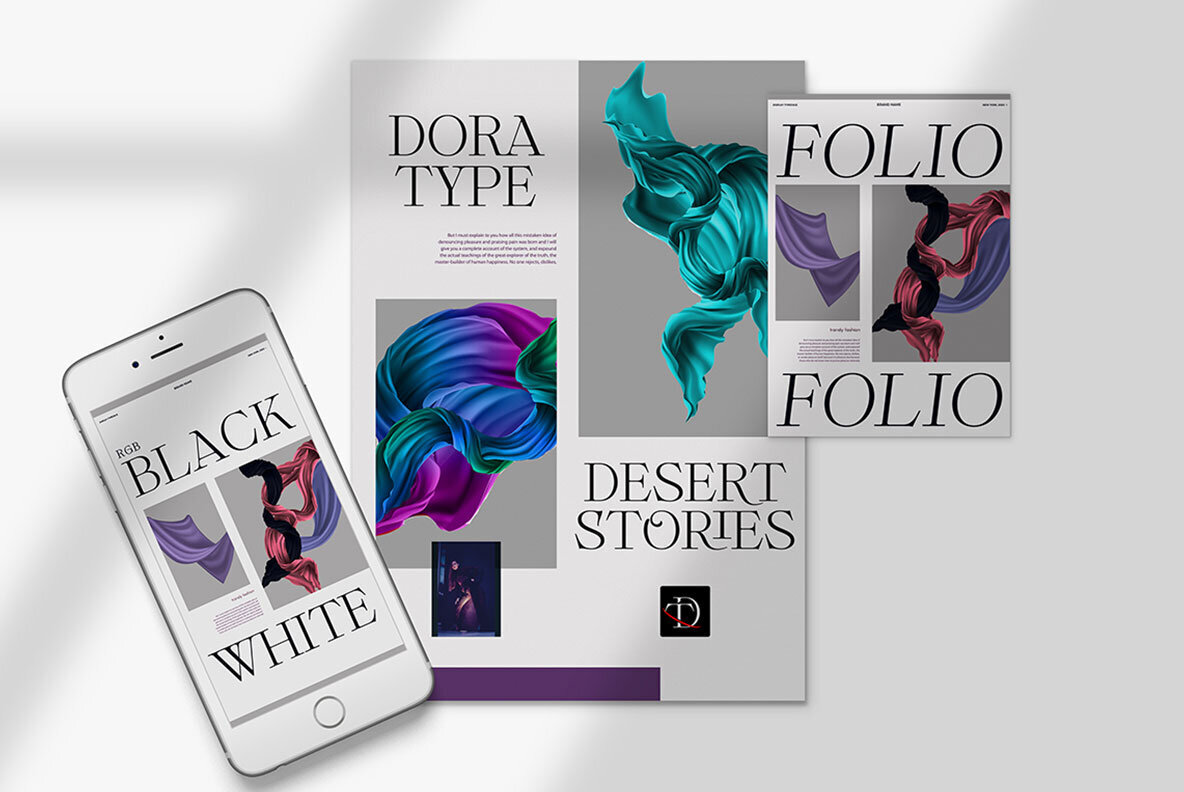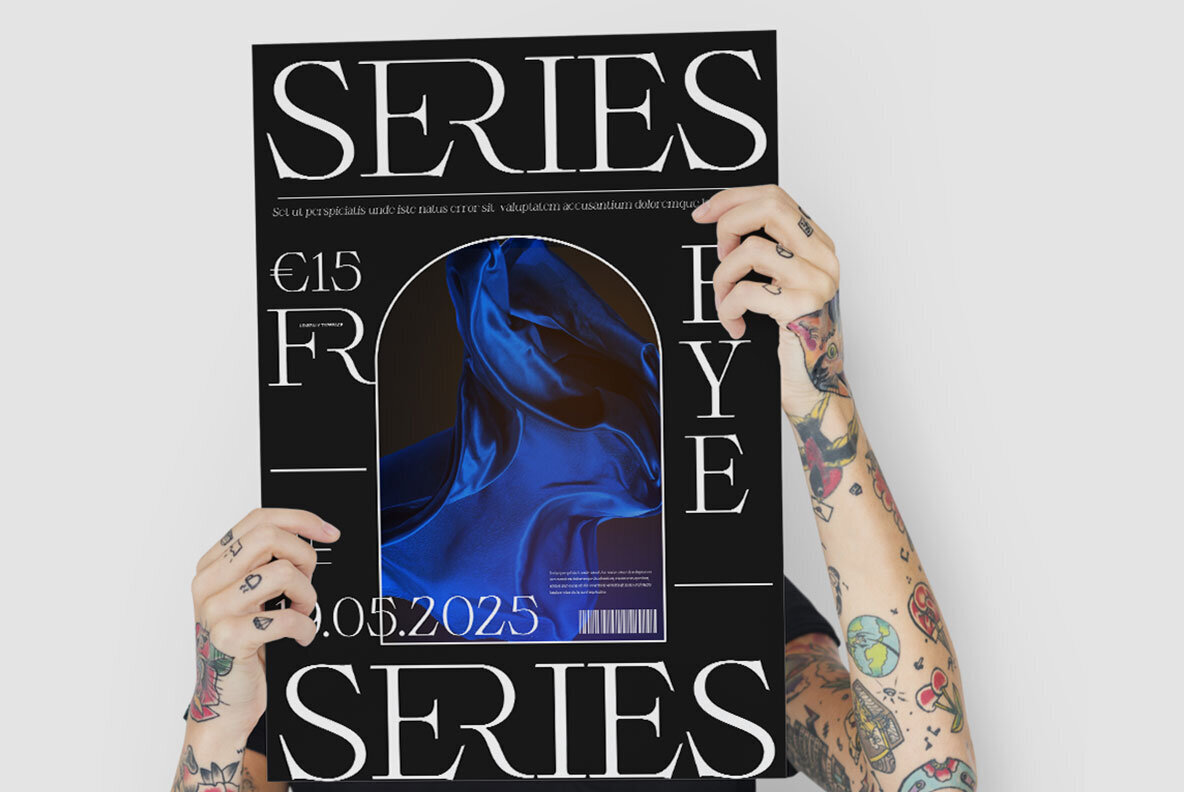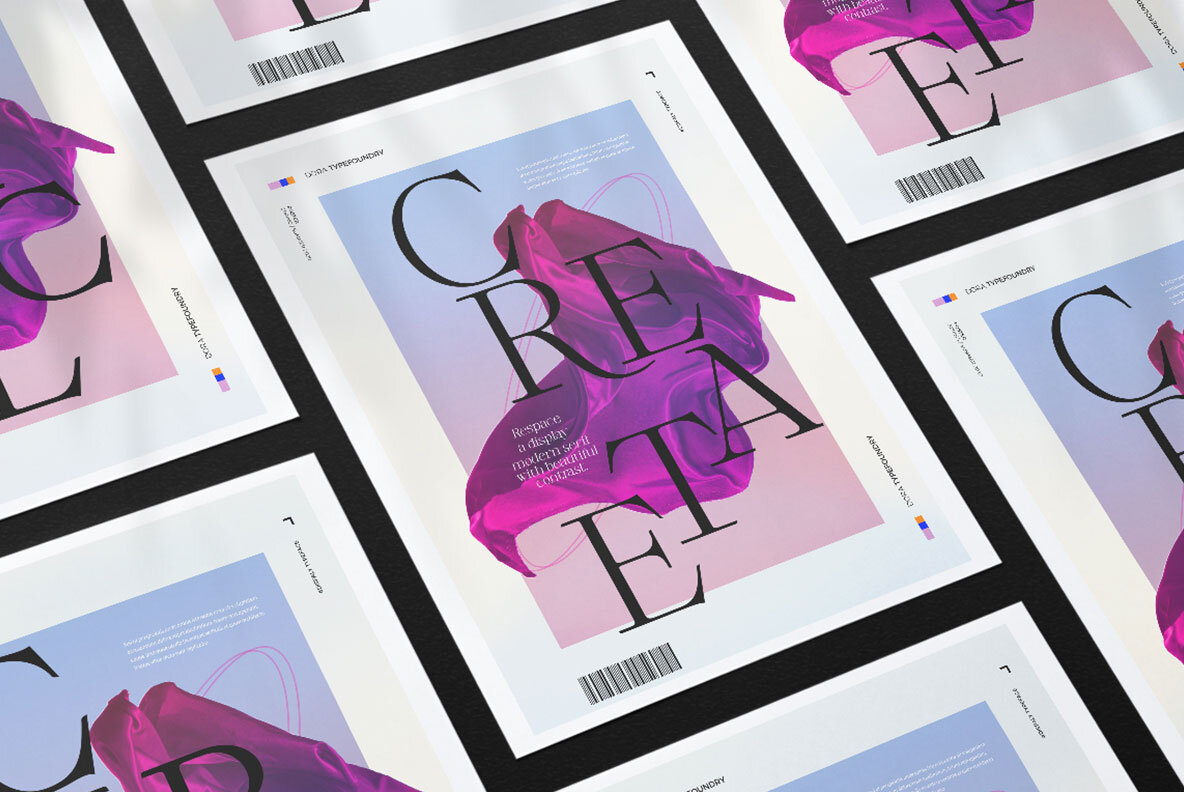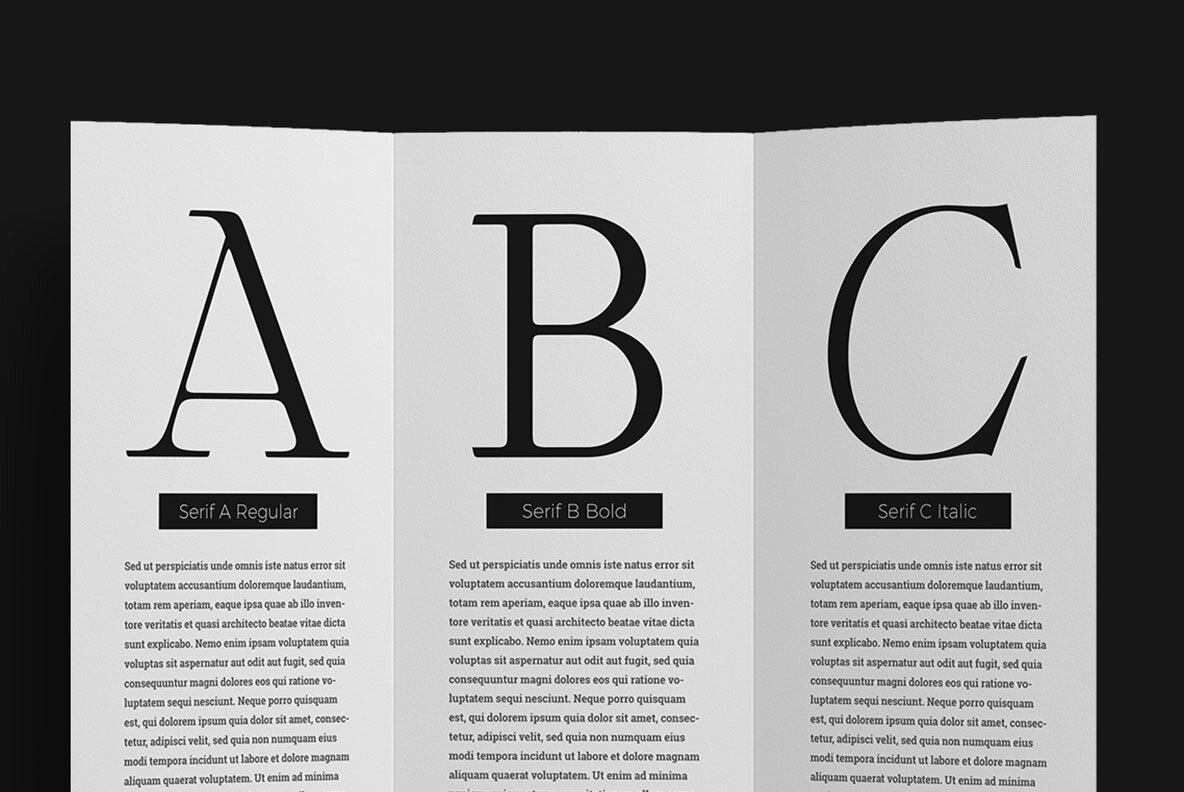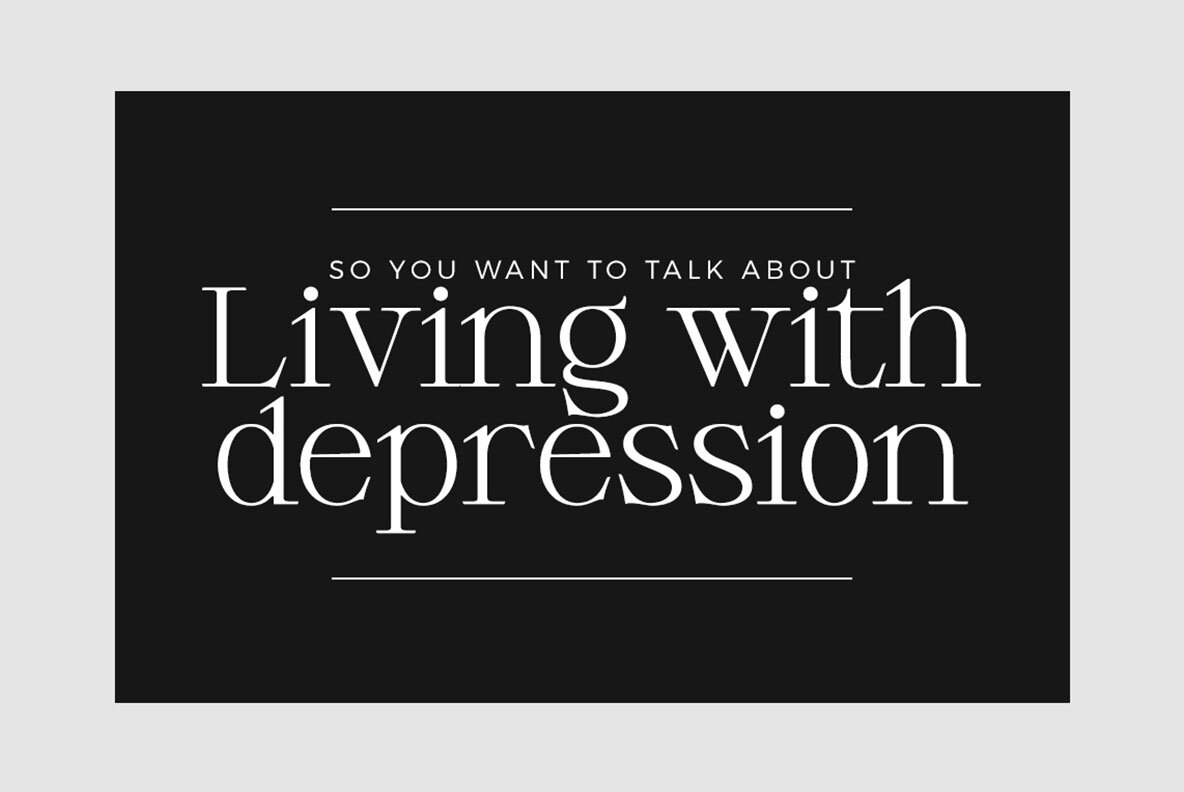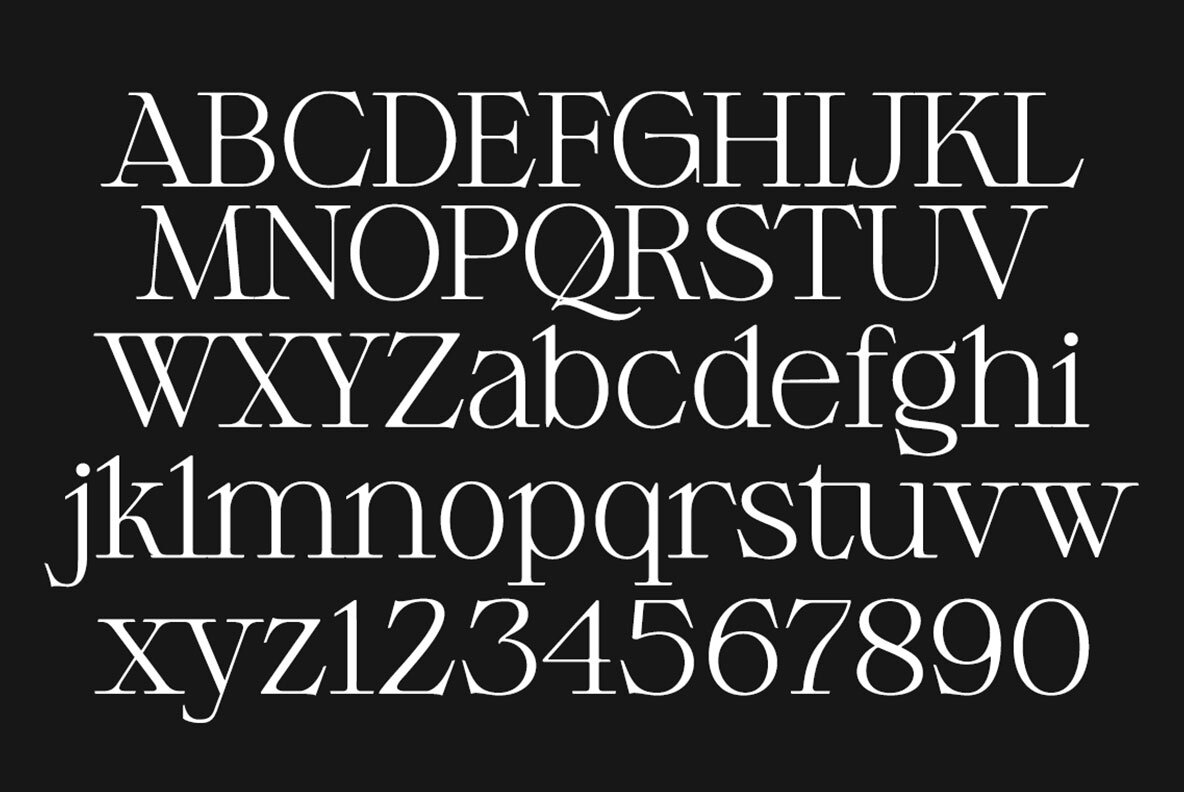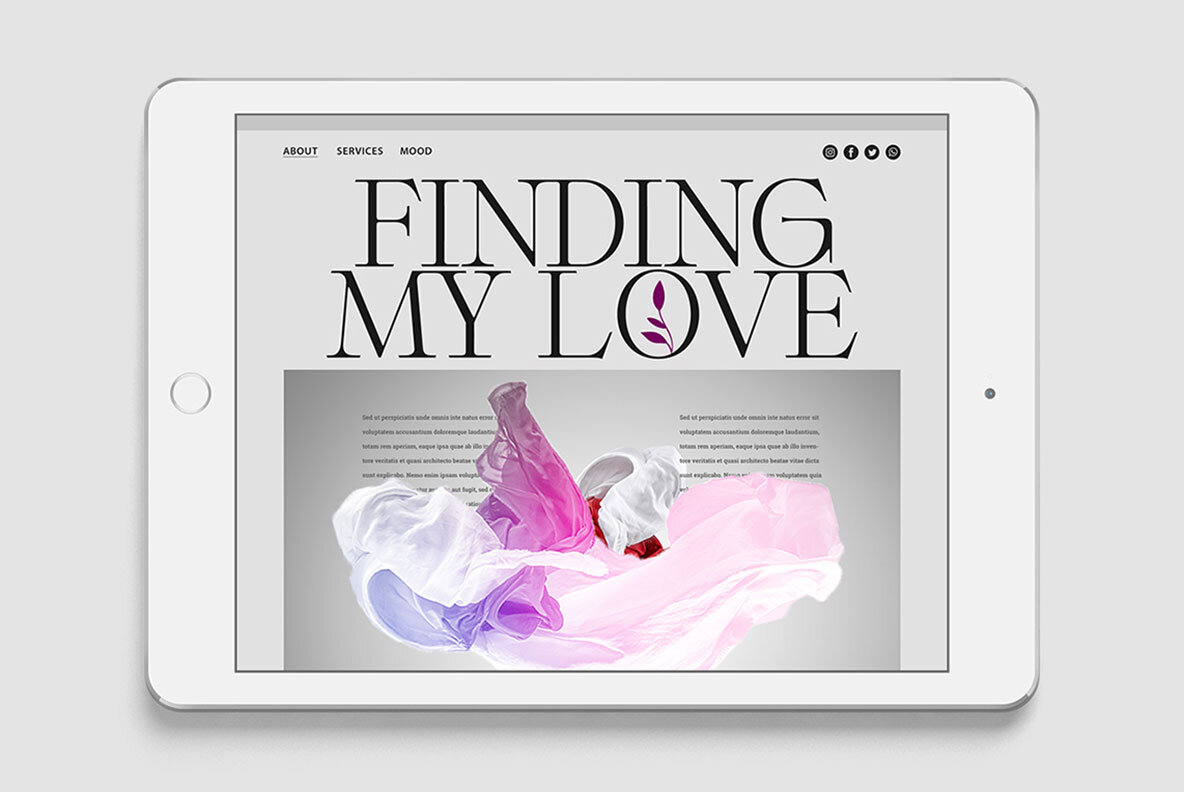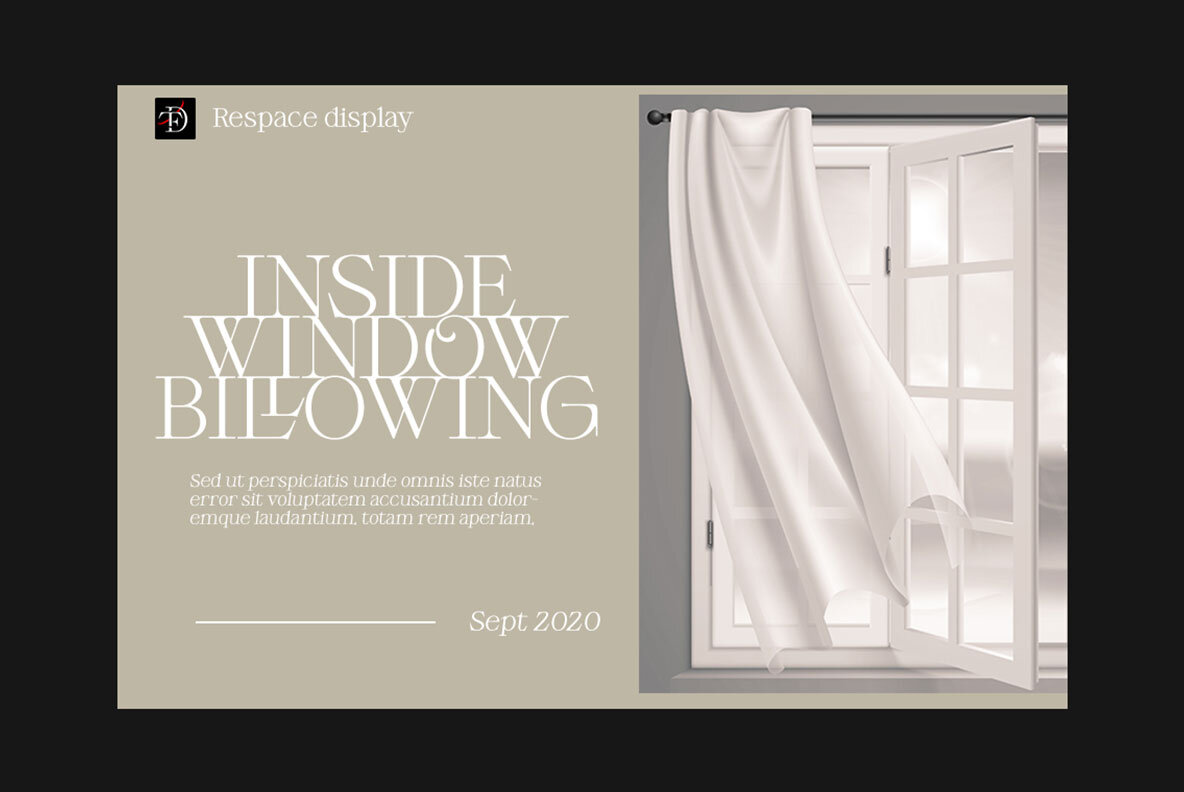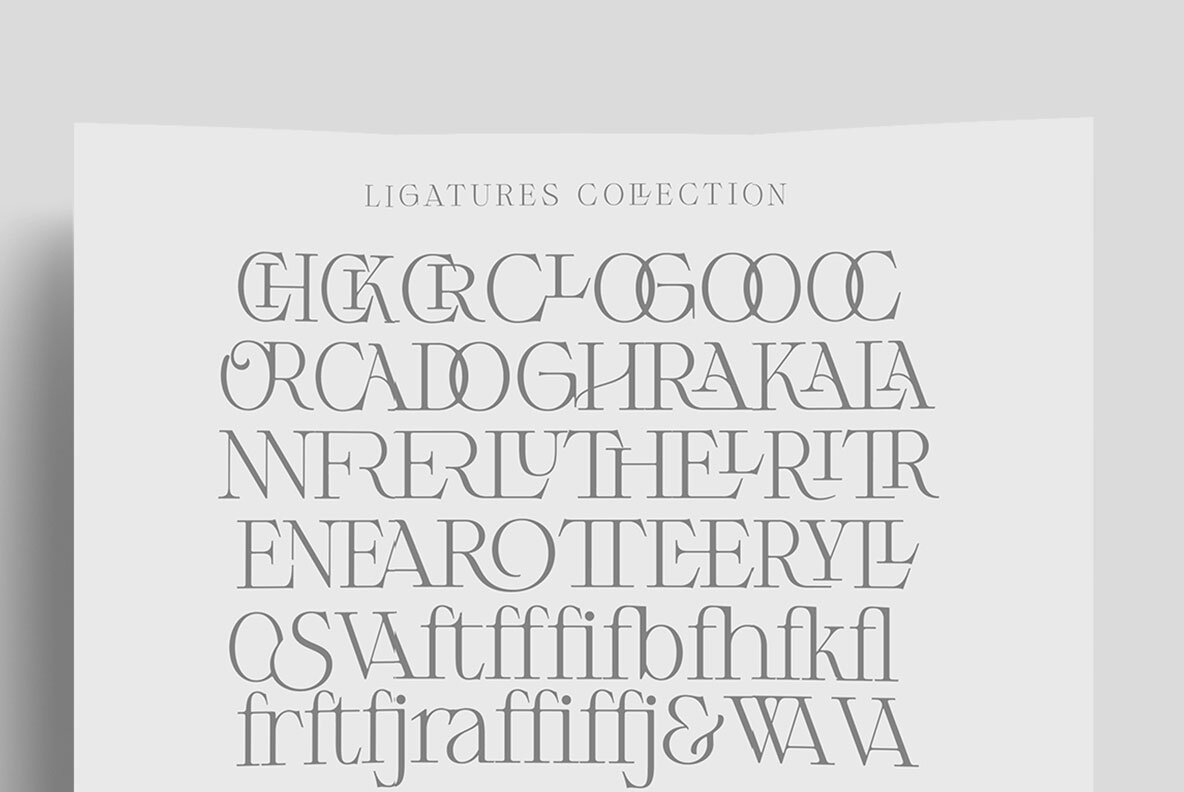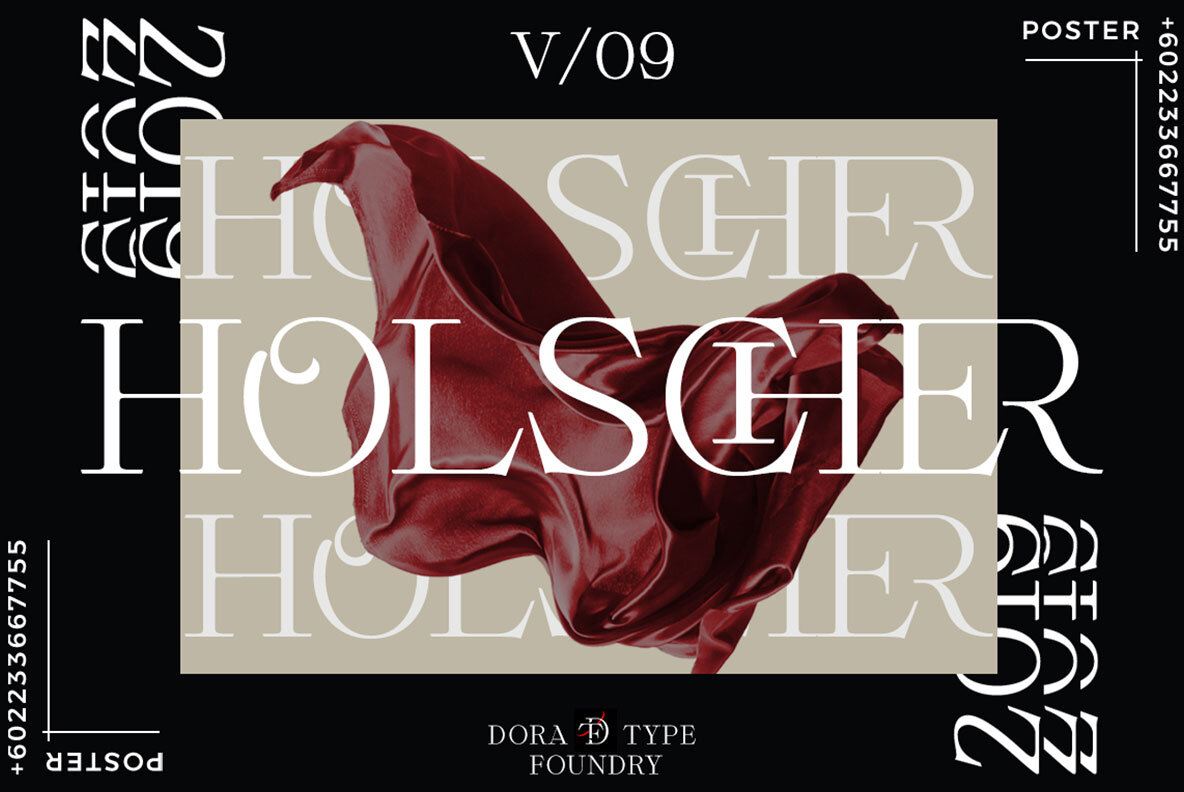
Respace Font
Respace - is a strong neoclassical serif font family with high contrast, cool, unique style and appearance with alternative fonts, Ligature and multilingual support. This font idea has a variety of references, from vintage to classic to the modern era, making it the perfect typeface for an understated, modern, and sophisticated look. all forms of beautiful and luxurious binders are suitable for brands and designs. The multitude of options for changing styles and ligatures make this Respace serif font incredibly versatile for your branding, magazine design, logo design, headlines, posters, packaging, cards, or wedding invitations. Space includes two styles (Standard / Bold) which each include 245 glyphs. OpenType features include 59 collection ligatures and a small number of character variants, and multilingual support (including multiple currency symbols). Features: